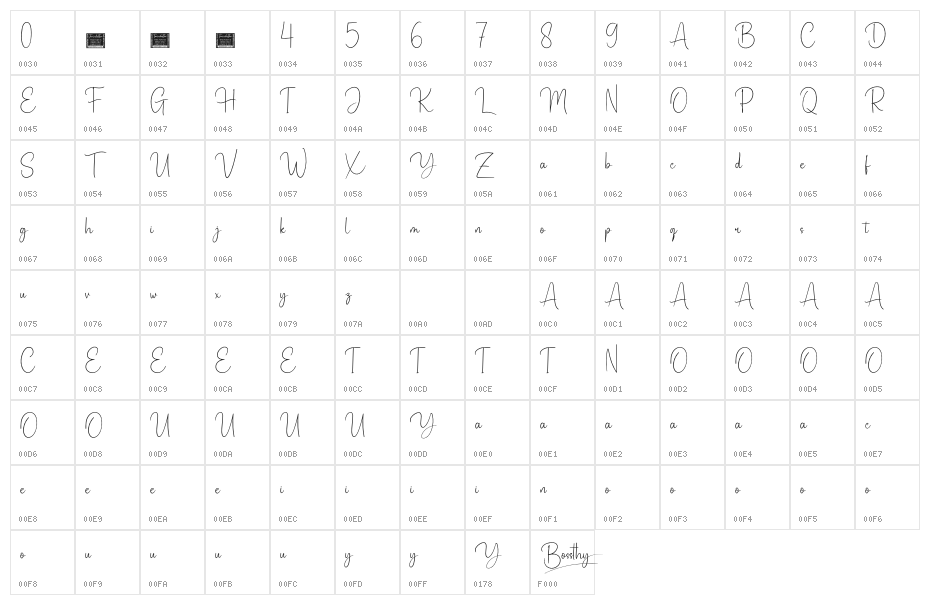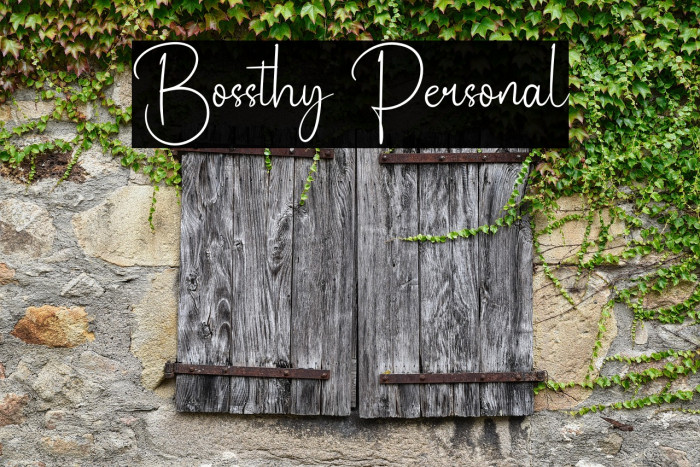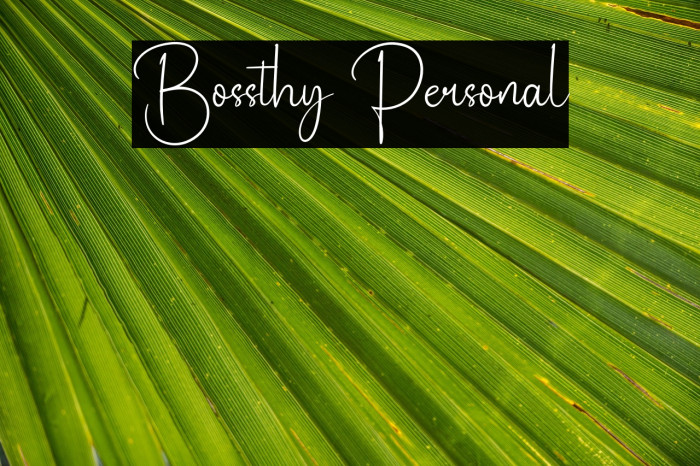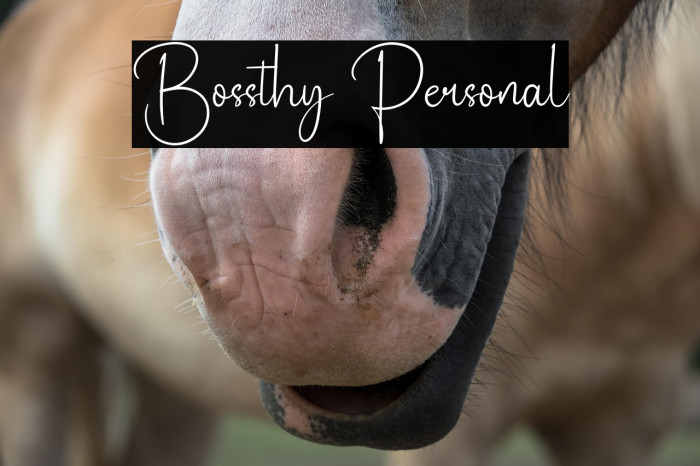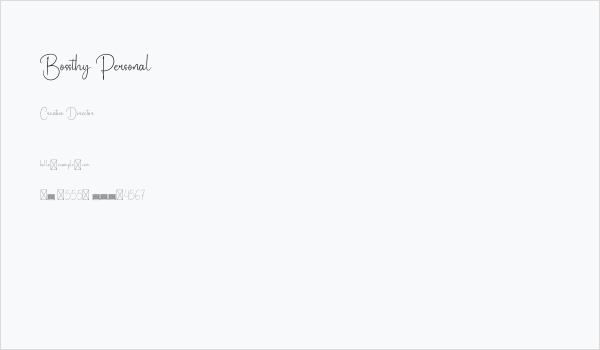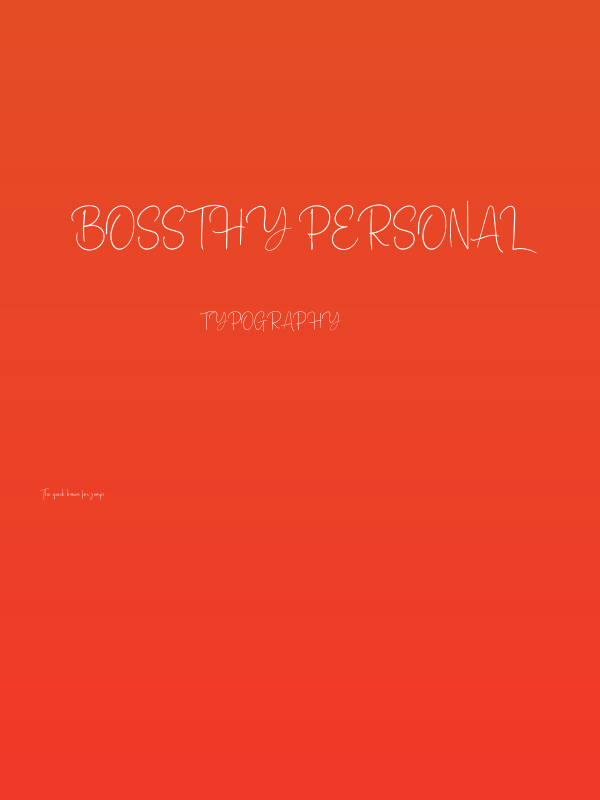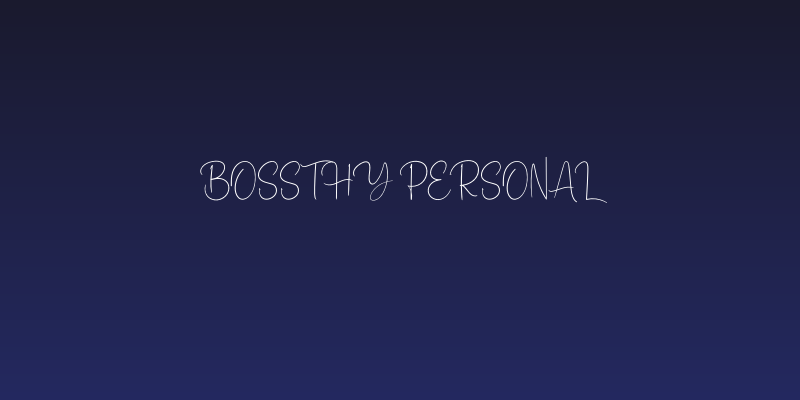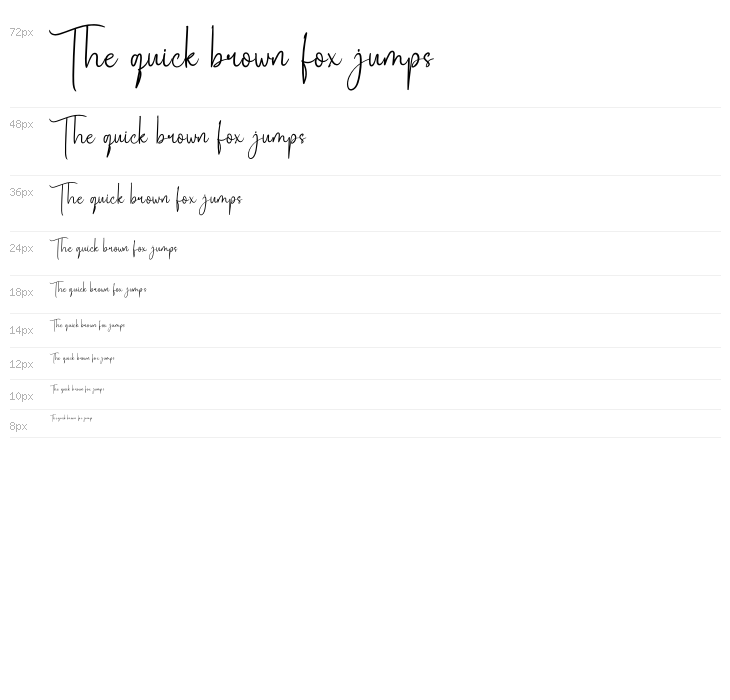
Bossthy Personal Font
Bossthy Personal Description
This font features a delicate and elegant handwritten style, characterized by its flowing, cursive letters. The uppercase letters are tall and slender, with a slight slant that adds a touch of sophistication. The lowercase letters maintain a consistent flow, with smooth curves and loops that enhance its graceful appearance. The numerals are simple yet stylish, complementing the overall aesthetic. This font exudes a personal and intimate feel, making it ideal for projects that require a touch of elegance and personality.